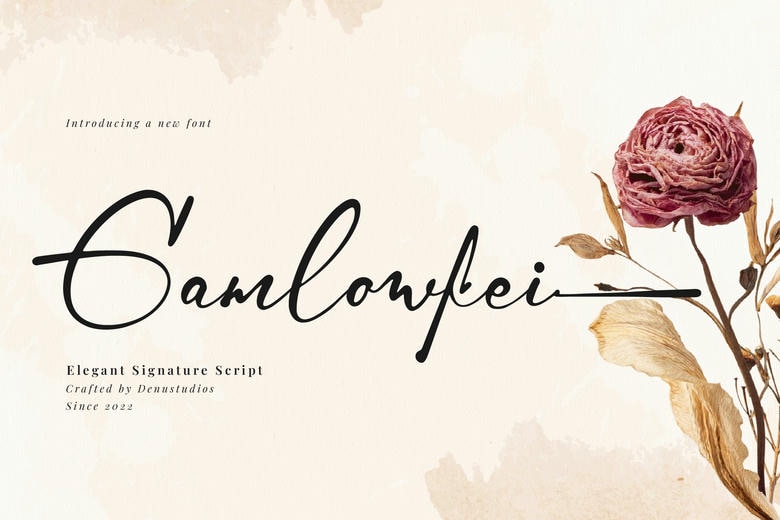
Gamlowfei Font
Gamlowfei is a signature script font that brings a sense of effortless elegance. With its long, flowing descenders and smooth, hand-inked strokes, it captures the look of a professional stylist’s handwriting.
This font is a great choice for luxury branding, wedding invitations, photography watermarks, and high-fashion editorial layouts. Gamlowfei makes every word look stylish and refined.
Gamlowfei Elegant Signature Font